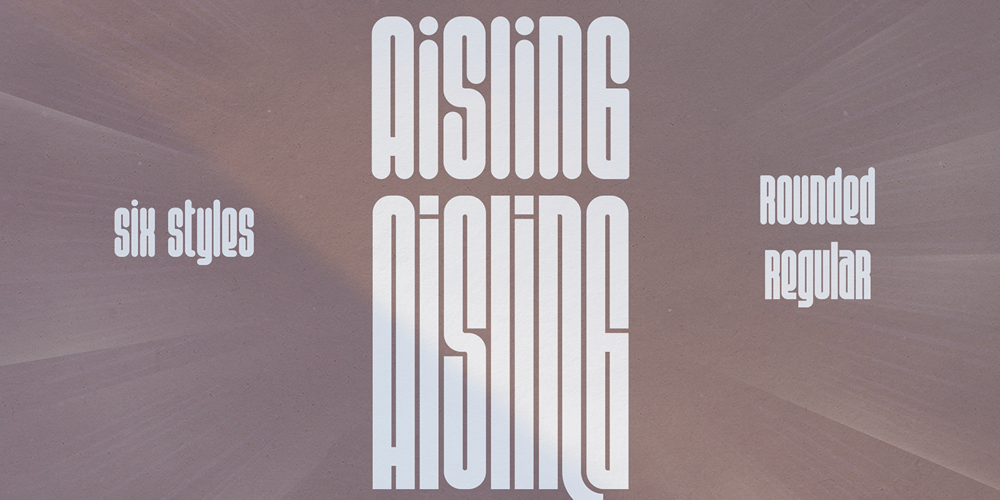
Aisling
Aisling font
Aisling Font Family was designed by Vladimir Fedotov, Plamen Petrov and published by VP Creative Shop. Aisling contains 6 styles and family package options. Introducing Aisling – Creative Display Typeface loaded with 6 fontsAisling is long, futuristic typeface with 6 fonts loaded with ligature glyphs, alternates and multilingual support to enchant your next project. Very versatile fonts that works great in large and small sizes.Aisling is perfect for branding projects, home-ware designs, product packaging, magazine headers – or simply as a stylish text overlay to any background image. Uppercase, lowercase, numeral, punctuation & Symbol Short – Straight and Rounded Regular – Straight and Rounded Long – Straight and Rounded ligature glyphs alternates Multilingual support How to access alternate glyphs?To access alternate glyphs in Adobe InDesign or Illustrator, choose Window Type & Tables GlyphsIn Photoshop, choose Window Glyphs. In the panel that opens, click the Show menu and choose Alternates for Selection. Double-click an alternate’s thumbnail to swap them out.Feel free to contact me if you have any questions!Mock ups and backgrounds used are not included.Thank you! Enjoy!